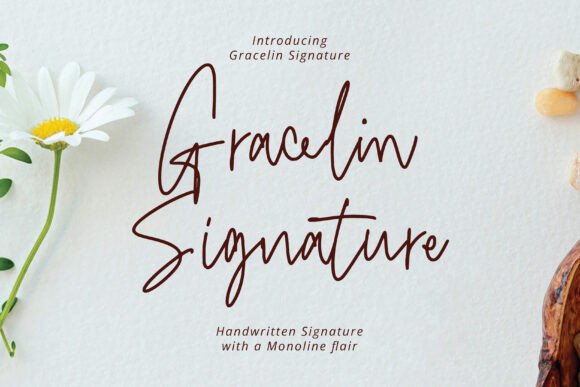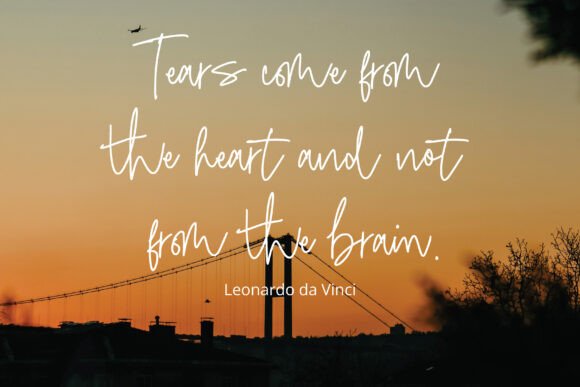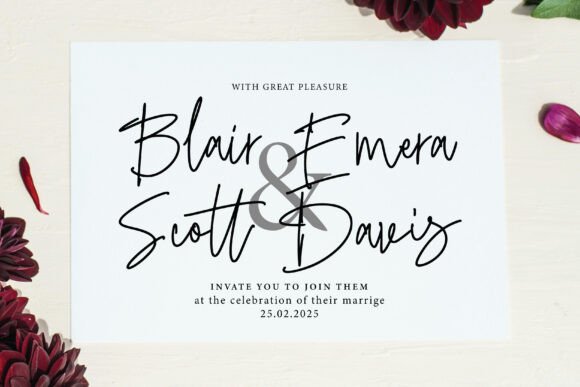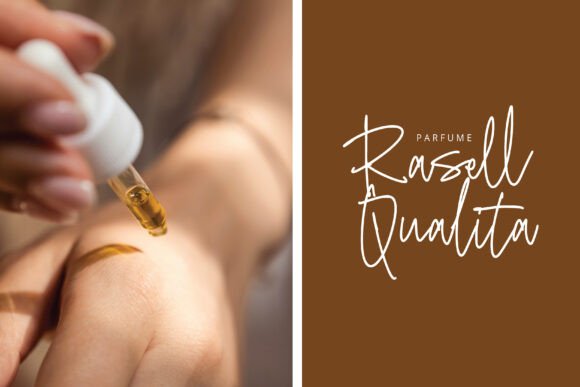
Gracelin Signature Font
About the Gracelin Signature Font
Meet Gracelin Signature Font, a stunning font that brings a touch of elegance and professionalism to any design. Gracelin Signature is a delicate handwritten font with a graceful monoline style, perfect for crafting elegant logos, personal branding, and sophisticated stationery. Its smooth strokes and natural flow evoke a modern signature feel with a refined, feminine touch.
Gracelin Signature excels in applications requiring a touch of refined elegance, such as logos, wedding invitations, and beauty product packaging. It’s ideal for short text blocks and headlines where its delicate nature shines. However, its low x-height and thin strokes make it unsuitable for body text or UI elements; readability suffers at smaller sizes or within lengthy passages.
Consider pairing Gracelin Signature with a clean sans-serif like Lato or Montserrat for a balanced contrast, or a classic serif like Garamond or Playfair Display for a more traditional feel. A geometric sans-serif would also provide a striking juxtaposition.
The overall personality of Gracelin Signature is sophisticated and feminine, conveying a sense of calm elegance and understated luxury. Its delicate forms create a feeling of quiet confidence and refined taste.
Gracelin Signature Font Usage Examples
Gracelin Signature Font Example